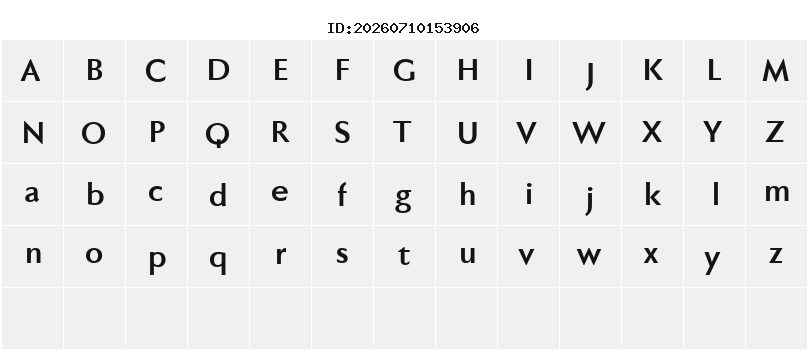
• Font Name: Faber Sans Pro reduced
• Font Style: 75 Halbfett
• Designer: Ingo Zimmermann
• Manufacturer: Ingo Zimmermann ingoFont Augsburg
About Faber Sans Pro reduced.ttf
Faber Sans Pro reduced.ttf is a modern, elegant sans-serif font designed for ultimate readability and visual harmony. Perfect for branding, headlines, web design, and print materials.